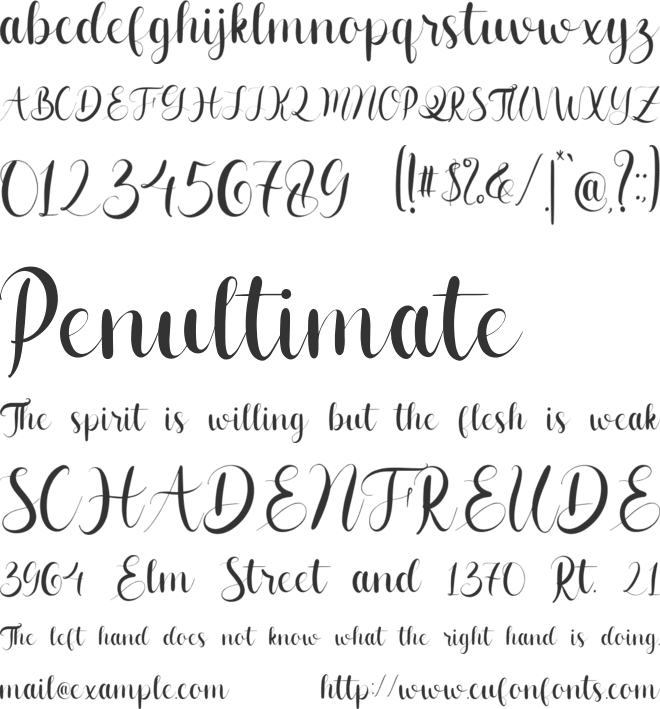
Historical Magical Font
Proudly Present, Historical Magical
Historical Magical is a New Modern Script with Swash
Historical Magical is perfect for product packaging, branding project, megazine, social media, wedding, or just used to express words above the background.